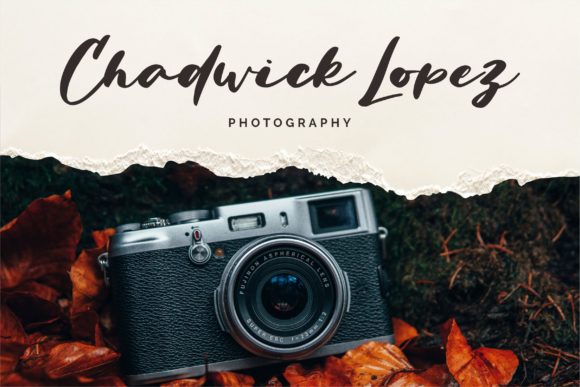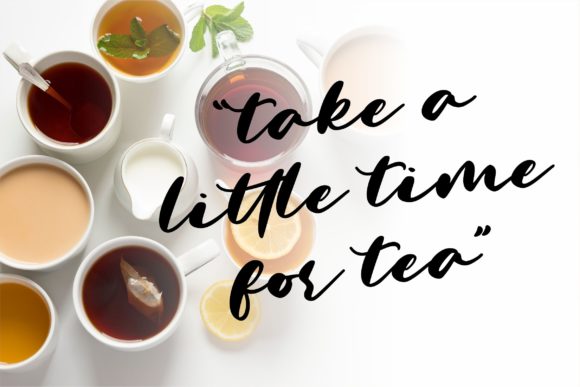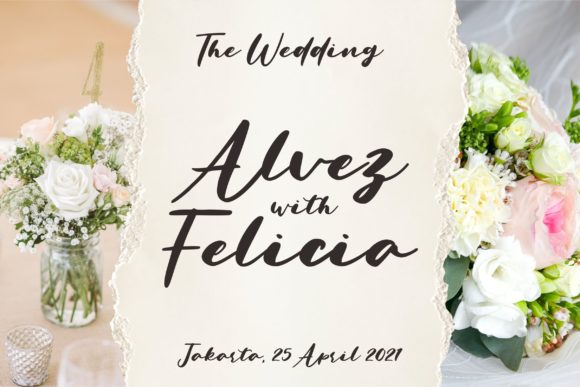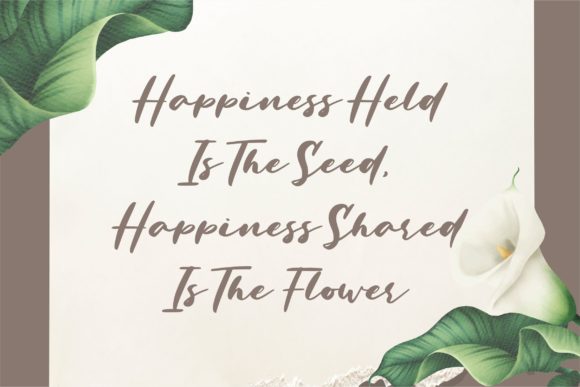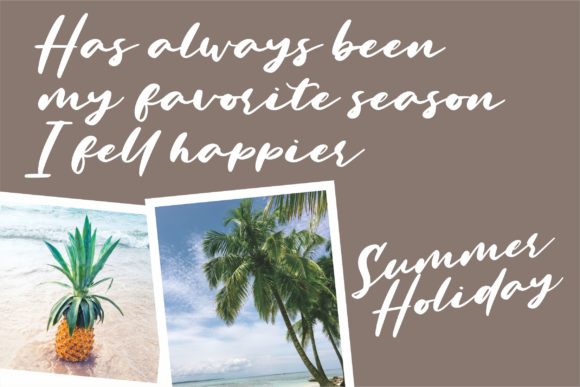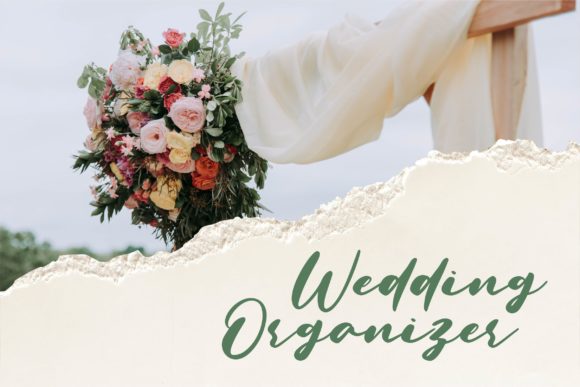
Aku Dan Kamu Font: Elevate Your Designs with Elegance and Charm
In the world of typography, few fonts manage to capture the essence of elegance and charm as beautifully as the Aku Dan Kamu font. This exquisite handwritten font is a masterpiece of delicate swashes and sweet, flowing lines that instantly elevate any design project. Whether you’re a seasoned designer or a crafty DIY enthusiast, Aku Dan Kamu is sure to become your go-to choice for creating stunning visual content.
The Beauty of Aku Dan Kamu
Aku Dan Kamu is more than just a font; it’s an artistic expression that brings a touch of sophistication and whimsy to your designs. Its elegant and dainty handwritten style features intricate swashes that add a level of refinement and luxury to any project. From letterheads and titles to stationery and branding materials, this font is versatile enough to complement a wide range of creative ideas.
Key Features of Aku Dan Kamu Font
- Elegant Handwritten Style: Aku Dan Kamu boasts a beautiful, handwritten look that exudes warmth and personality.
- Delicate Swashes: The font features sweet and delicate swashes that add a touch of elegance and sophistication.
- Versatility: Perfect for a variety of design projects, including letterheads, titles, stationery, and more.
- Crafty Appeal: Ideal for crafty ideas, DIY projects, and handmade products.
Aku Dan Kamu font is a dream come true for designers and crafters alike. Its unique and captivating style allows designers to create stunning visual content that stands out from the crowd. For crafters, this font offers endless possibilities for customizing and personalizing their projects, from handmade cards and invitations to bespoke stationery and gift tags.
Tips for Using Aku Dan Kamu Font
- Pair with Neutral Backgrounds: Let the font be the star of the show by pairing it with neutral backgrounds that won’t compete for attention.
- Experiment with Colors: Play with different colors to find the perfect match for your design and brand.
- Add Texture and Patterns: Mix in texture and patterns to add depth and visual interest to your designs.
- Use for Headings and Titles: Aku Dan Kamu font shines when used for headings and titles, making it perfect for blog posts, articles, and marketing materials.
Where to Use Aku Dan Kamu Font
The possibilities are endless when it comes to using Aku Dan Kamu font. Here are some popular applications:
- Stationery and Invitations: Create beautiful, one-of-a-kind stationery and invitations for special occasions.
- Branding and Packaging: Elevate your brand with elegant and sophisticated packaging and marketing materials.
- Blogging and Content Creation: Add a touch of elegance to your blog posts and social media content.
- DIY Projects: Use Aku Dan Kamu font to customize and personalize your DIY projects, from handmade cards to home decor.
Aku Dan Kamu font is a true gem in the world of typography. Its elegant and dainty handwritten style, complete with delicate swashes, makes it the perfect choice for designers and crafters looking to add a touch of sophistication and charm to their projects. With its versatility and wide range of applications, Aku Dan Kamu font is sure to become a staple in your design toolkit. So why wait? Discover the beauty of Aku Dan Kamu font and elevate your designs to new heights of elegance and creativity.